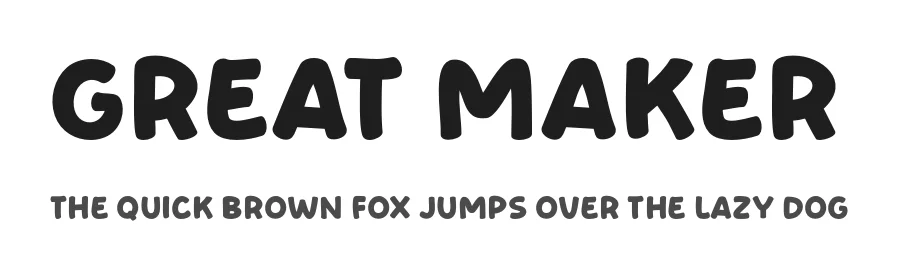
About Bigboss Font
Big Boss font is perfect for those of you who want the style of children. Fonts Made specifically for purposes such as: Kindergarten, Birthday, Kid, Cartoon, Comic, Children, and Playful.
| Designer | Almaz Studio |
Bigboss Font is a decorative font that shines as a display or heading face. Pair it with a clean sans-serif or serif font for body text β the contrast creates a clear hierarchy while the two styles stay balanced and easy to read.
Bigboss Font
by Almaz Studio